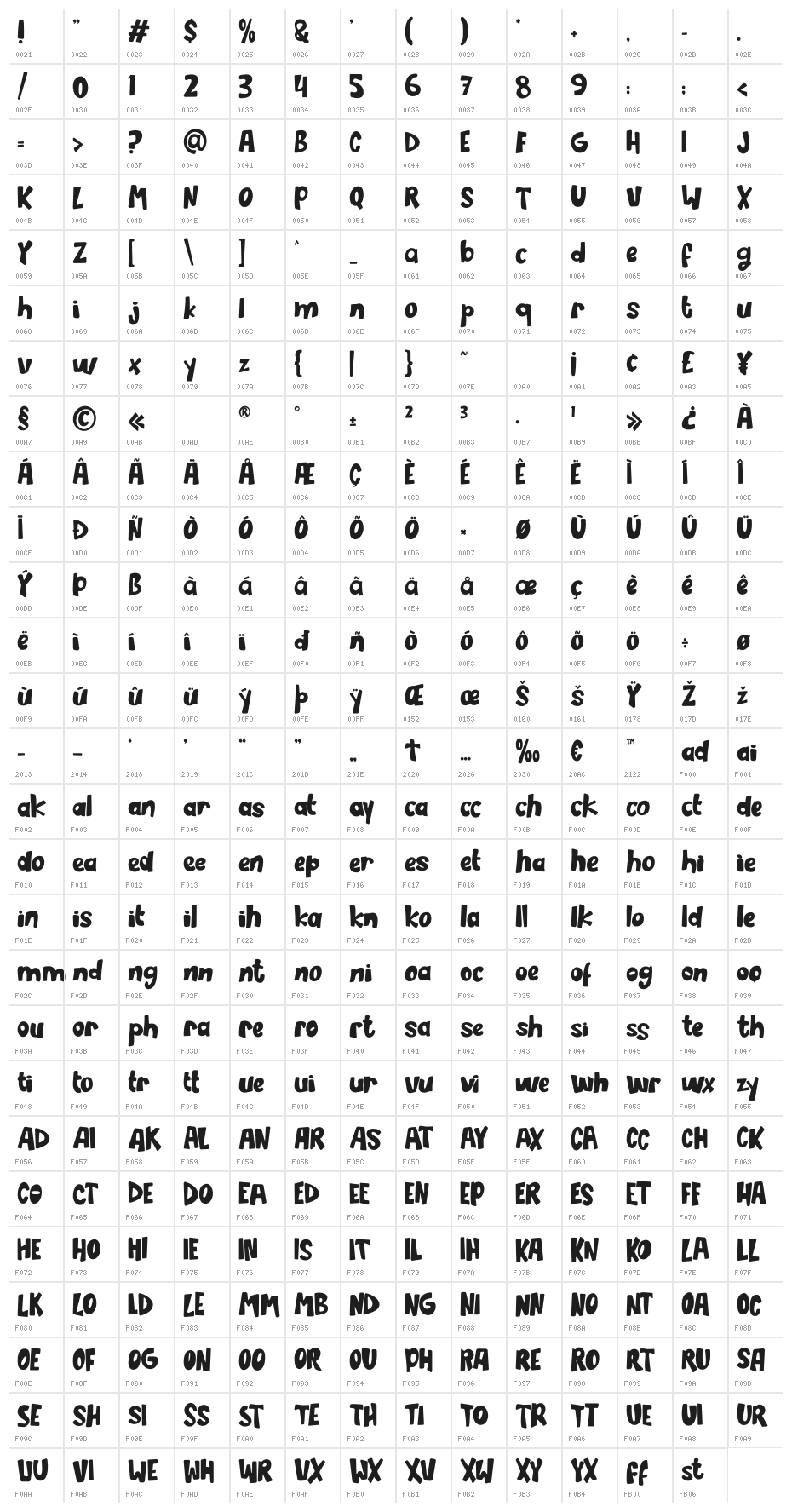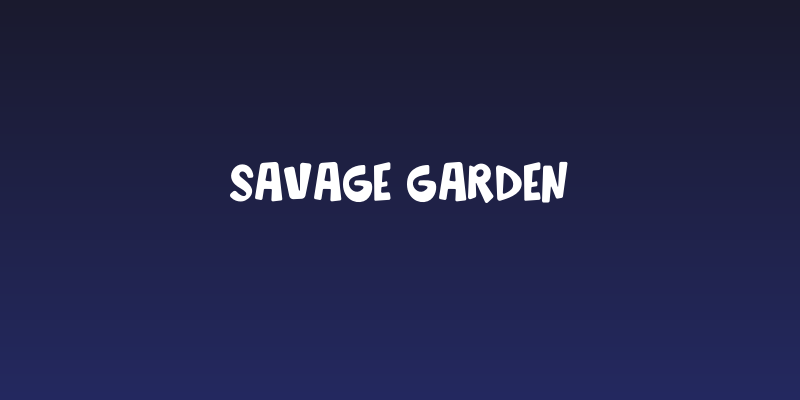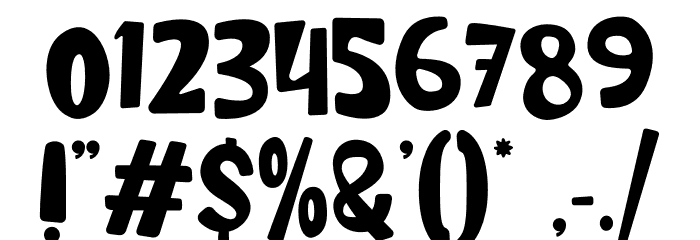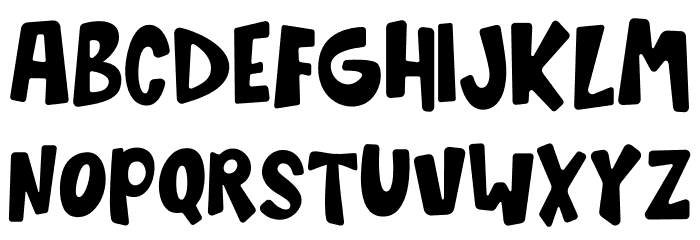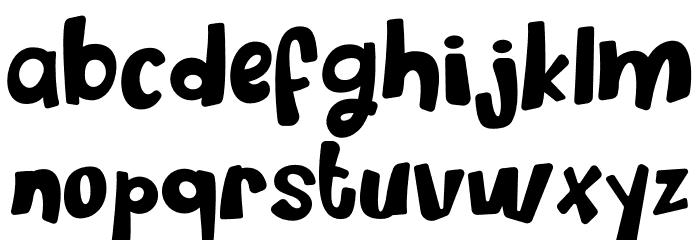
Savage Garden Font
This playful and bold font features a hand-drawn, cartoonish style with exaggerated curves and a slightly irregular baseline, giving it a lively and whimsical appearance. The characters are thick and rounded, providing a strong visual impact. The uppercase and lowercase letters maintain a consistent style, with the lowercase letters being slightly more compact. Numbers and special characters are equally bold and expressive, making them stand out. The font's informal and fun nature makes it ideal for creative and casual applications.
| Proposed Projects | Ideal for children's books, comic strips, playful branding, and party invitations. |